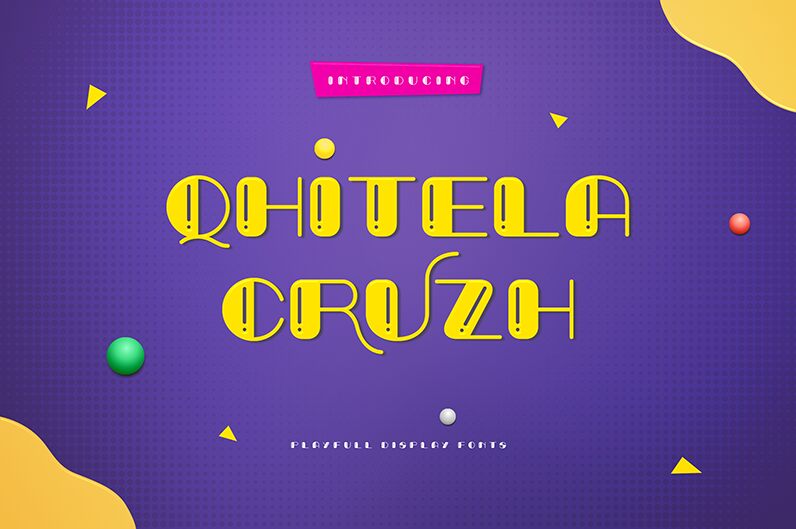
Qhitela Cruzh Rounded
Qhitela Cruzh font is a fresh and playful display typeface with an incredibly friendly feel. Whether you're looking for fonts for Instagram or calligraphy scripts for DIY projects, this font will turn any creative idea into a true piece of art!